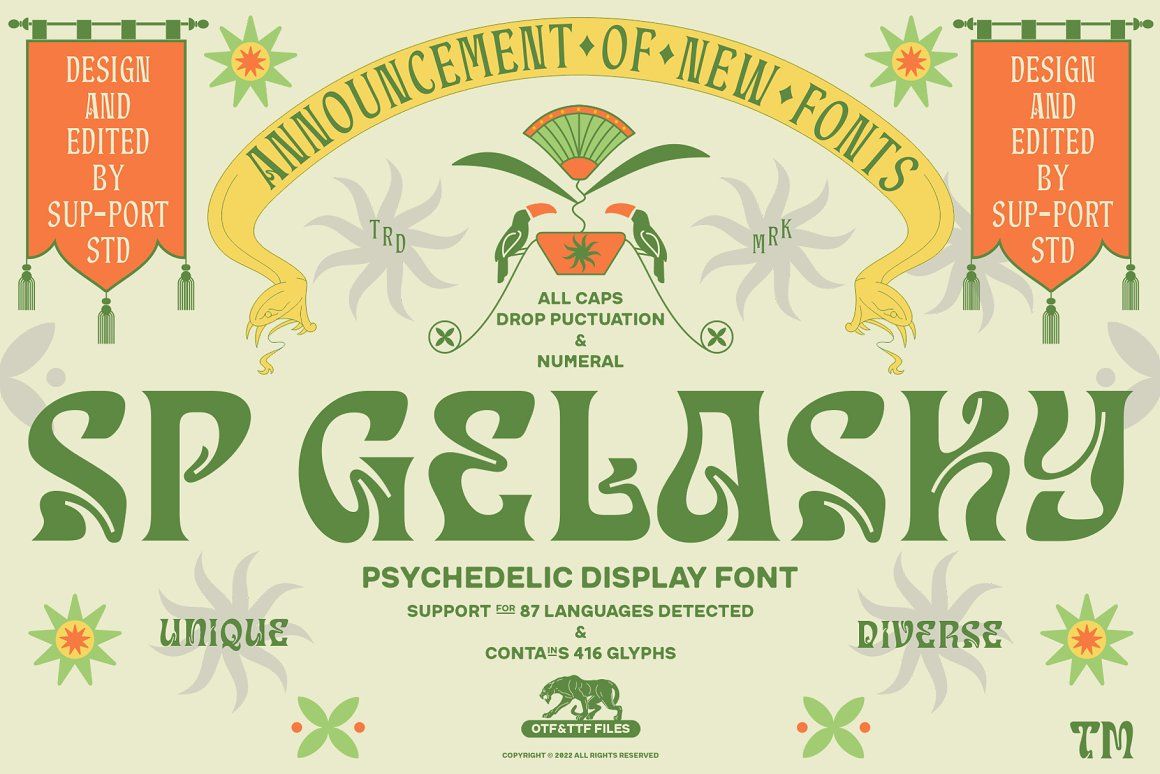
Exploring the Beauty of Psychedelic Fonts and Recommended to Try
Psychedelic arts are known for their vibrant colors, intricate patterns, and unconventional designs. These unique features are aimed at evoking free-spirited creativity. This art movement from the 1960s is often associated with mind-bending visuals and was a form of rebellion against the traditional design style.
In this article, we will dive into the beauty of psychedelic fonts and some recommendations you need to consider adding to your font collection.
Characteristics of Psychedelic Fonts
Just like art, psychedelic fonts have unique characteristics. These are some of them.
• Vibrant colors
Psychedelic fonts are often bold and vibrant. Fluorescent greens, neon pinks, and electric blues are combined together to create a striking visual. This contrasting color creates an attention-grabbing effect that is also a distinct characteristic of these fonts.
• Fluid shapes and lines
Traditional fonts often have rigid structures, while psychedelic ones are more fluid. It often features flowing lines and organic shapes, making the letters look as if they are moving.
• Distorted and warped letters
Letters are sometimes distorted and warped to create a surreal appearance. It can be in the form of wobbling or even extreme contortions.
• Hand-Drawn Aesthetics
Many psychedelic fonts use a hand-drawn style to embrace imperfection and irregularities. This creates a sense of human touch to the font and strengthens the idea of artistic expression.
• Organic elements
Organic elements, including plants, flowers, or cosmic imagery, are also often added. These elements enhance the surreal atmosphere that is the characteristic of psychedelic art.
• Irregular size and heights
As mentioned previously, psychedelics are a form of rebellion against rigid art norms. Therefore, it is no surprise that psychedelic fonts also have this characteristic. The fonts often have irregular sizes and heights as they try to break away from uniformity.
Recommended Psychedelic Fonts
1. Psychedelitype Sooky
This font was inspired by the psychedelic type 5788 from the 1960s. The fluid movements of the letters create playful yet refined letterforms that capture the essence of psychedelic art. This font is an excellent choice if you’re looking for lighter characters of psychedelia, as it has a balanced amount of creativity and elegance.
Use this font to bring out the 60s vibe to your design project. It comes in 3 styles: regular, extrude regular, and outline regular.
2. Emiken Display
Emiken combines futuristic and psychedelic with its sleek and angular letterforms. These combinations of unique shapes give a sense of movement and a cosmic vibe. The bold and geometric shapes create a striking letterform that makes it perfect as a display font.
This font comes in 3 styles including regular, slant, and italic. It also supports multiple languages for easier use.
3. High Romantic
This is one of the psychedelic fonts that come in a groovy style, which evokes the spirit of romance and groove. The bold and handwriting styles create a unique style that enhances the playfulness vibe of the font. Due to the bold style, High Romantic is a great font for headlines, titles, or logotypes.
This font supports multi-language and adds a lot of flexibility. You can easily experiment with this font to create typography that suits your design needs.
4. Mamenchisa
Mamenchisa comes with organic and flowing elements that will remind you of psychedelic art. The intricate details create an illusion of vines and leaves, which enhance the natural vibes. This is why Mamenchisa is an excellent choice for nature-themed design projects such as headlines, titles, or logos.
5. Lova Power
This font emphasizes the retro psychedelic style with its rounded letters. The bold and chunky letters and a vibrant color scheme evoke rebellious vibes. It is inspired by the iconic style of the ’60s and ’70s era that is characterized by the free-spirited ideology.
This font has complete characters and supports multi-languages for usage flexibility. The bold style and unique letterforms are perfect to attract attention, making it a great display font. Use this font for headlines, titles, logos, and posters.
6. SP Gelasky
This psychedelic font uses distorted and surreal letterforms, making the letter look melted and warped. This creates a stunning visual illusion that will make every head turn. The dynamic style makes this font perfect for any design purpose, from headlines to logo creation.
The natural elements will make this font perfect for nature-themed design projects. Combine it with vibrant color and a stunning psychedelic nature-themed design.